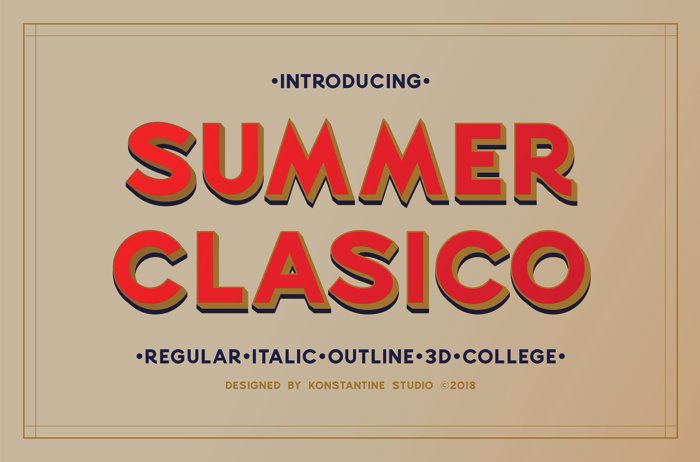
Summer Clasico DEMO Font
Please welcome, Summer Clasico. A family of vintage display sans serif. Inspired by the old advertising, sign, label, and packaging from the early 19 century. Perfectly fit for your luxury vintage branding, coffee shop, organic beverages, classy restaurant menu, etc. Instant jump to the grandpa's day for the old time sake.